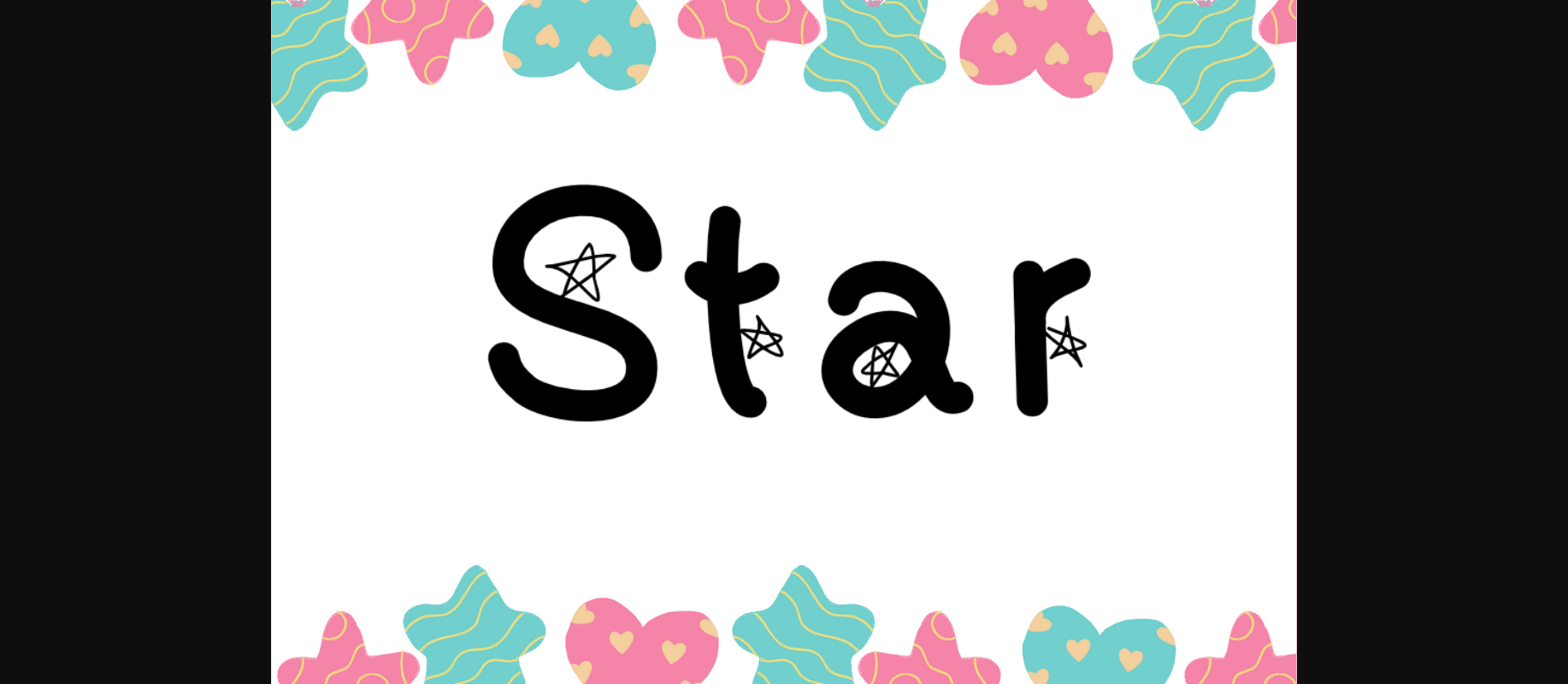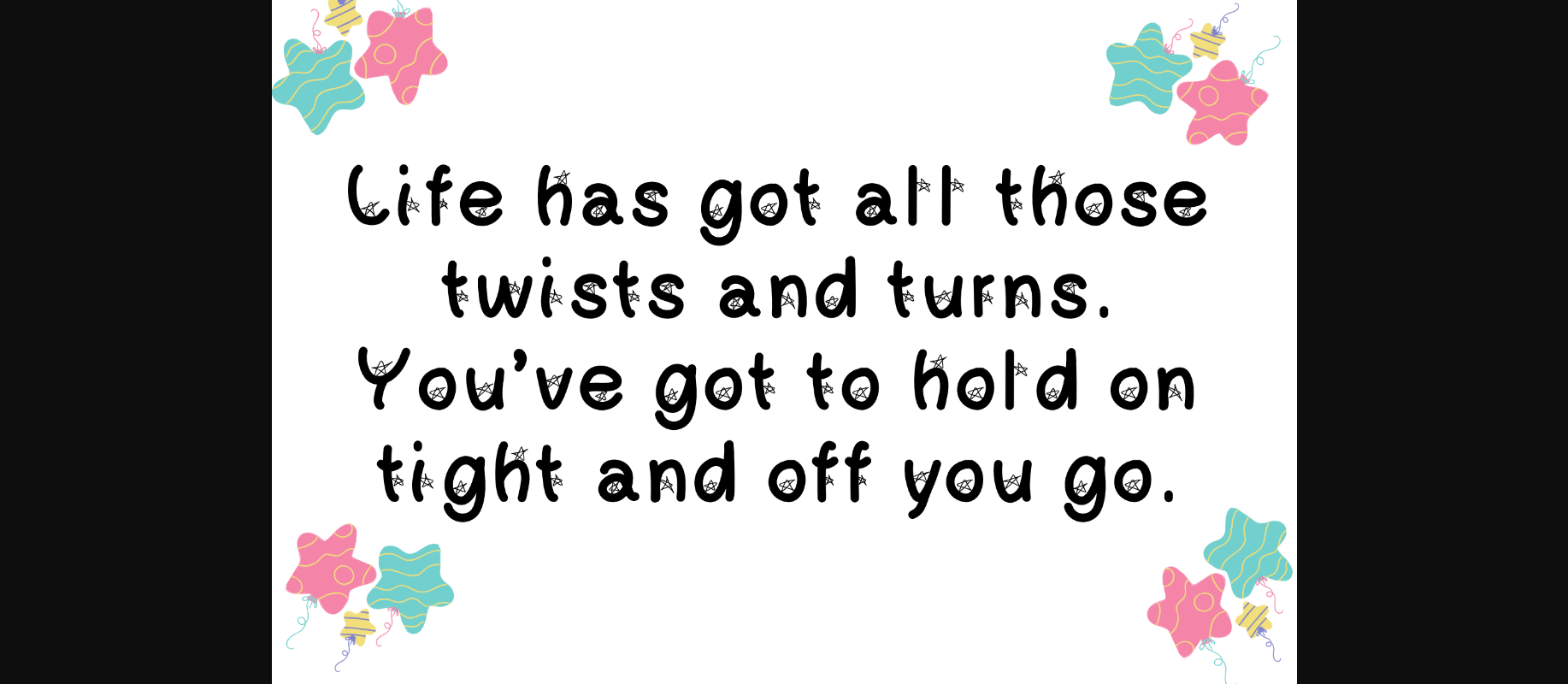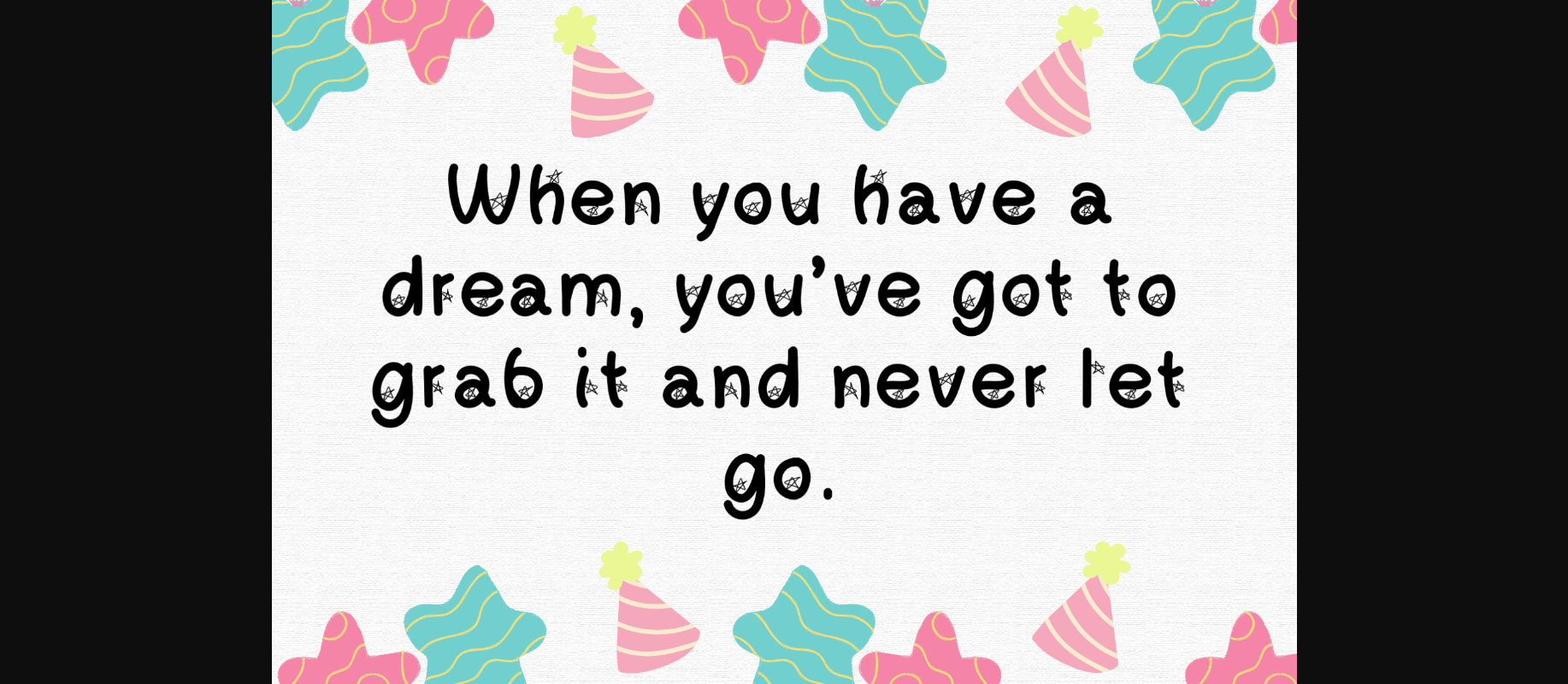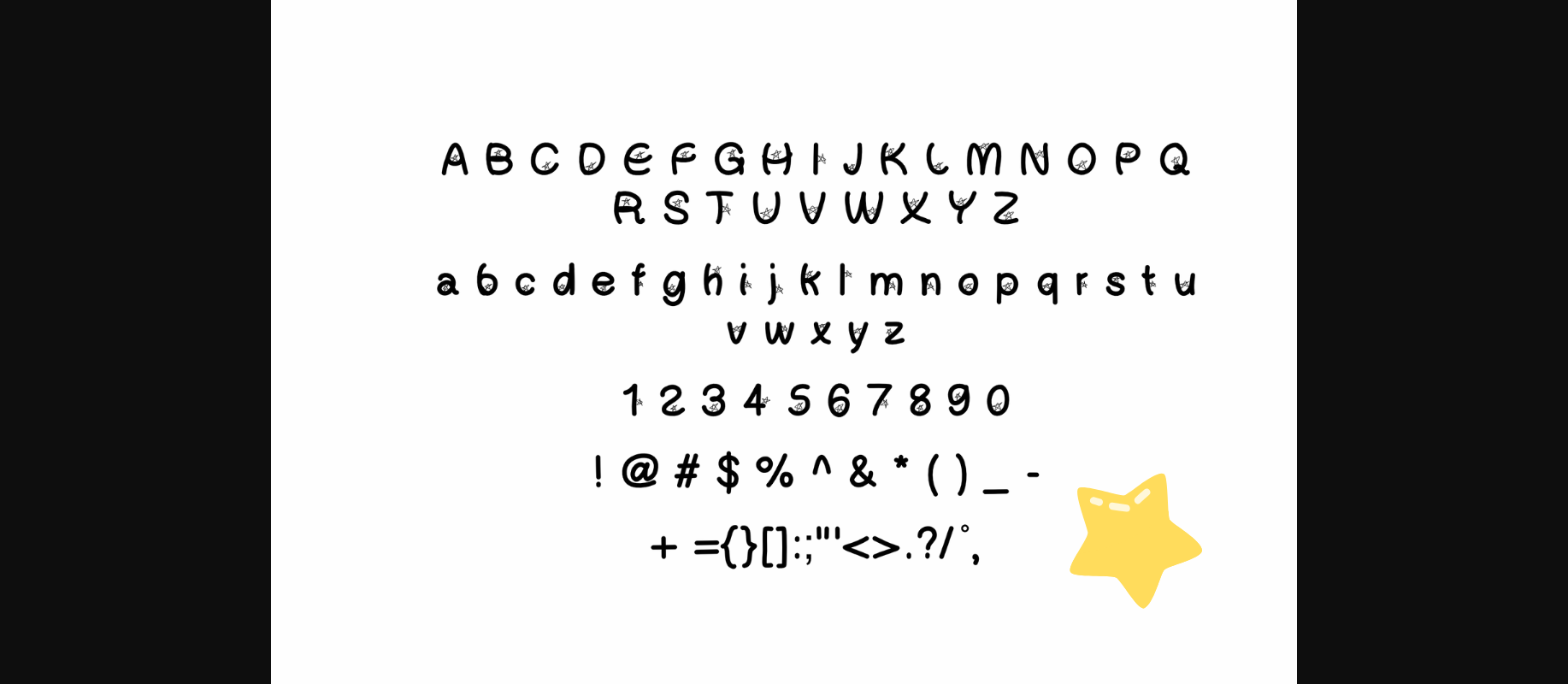
About Star Font
Star is a playful decorative font perfect for many design projects. Add it to your quotes, logos, blog headers, posters, branding, lettering, invitations, stationery, and many more, and they will capture everyone’s attention!